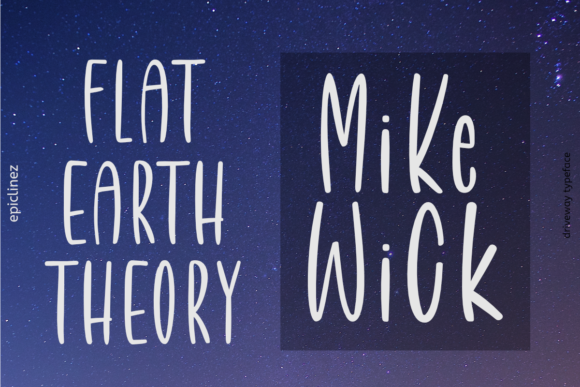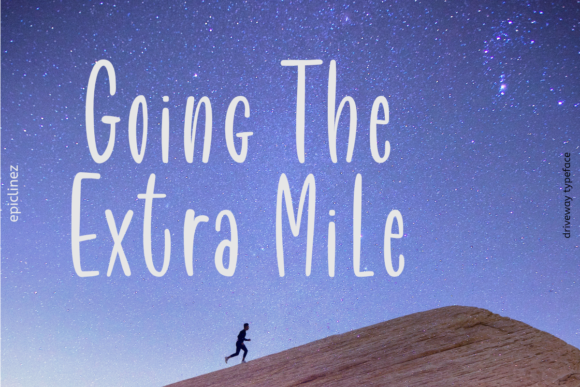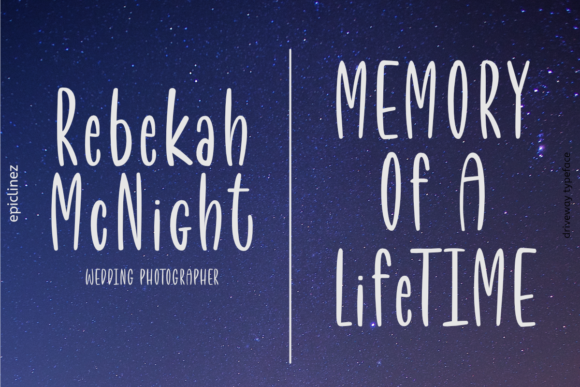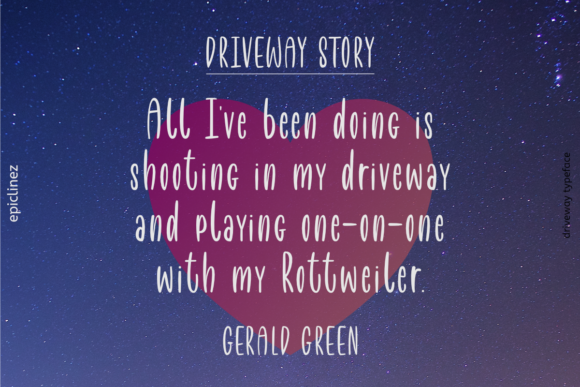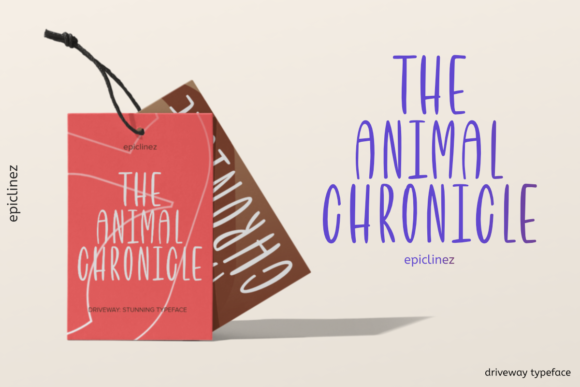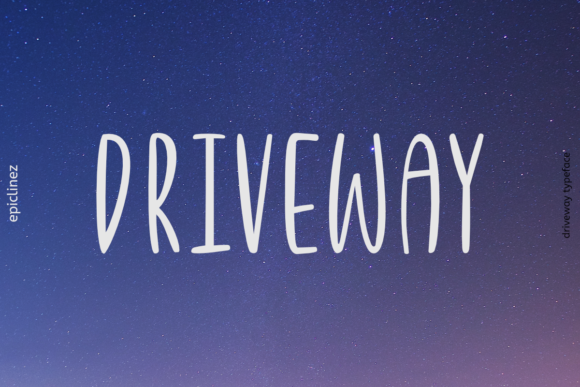
Introducing Driveway Font: The Perfect Blend of Playfulness and Readability
Are you tired of using the same old fonts in your creative projects? Look no further than Driveway Font, a casual handwritten font that’s sure to add a touch of whimsy and charm to any design. With its simplistic yet playful feel, Driveway Font is the perfect choice for designers and crafters looking to add some personality to their work.
The Characteristics of Driveway Font
Driveway Font is a handwritten font that’s designed to be highly readable, making it perfect for use in a variety of creative projects, from signage and posters to digital graphics and crafts. Its casual, laid-back feel gives it a friendly and approachable vibe that’s sure to resonate with audiences of all ages.
One of the standout features of Driveway Font is its simplicity. With clean lines and a straightforward design, this font is easy to read and understand, even at small sizes. This makes it a great choice for designers who need to create text-heavy designs that still need to be visually appealing.
The Benefits of Using Driveway Font
So why choose Driveway Font for your next creative project? Here are just a few benefits of using this versatile and charming font:
• Playful feel: Driveway Font has a fun and playful feel that’s perfect for designs that need to be lighthearted and engaging.
• High readability: With its clean lines and simple design, Driveway Font is easy to read, even at small sizes.
• Versatility: Driveway Font can be used in a wide range of creative projects, from digital graphics and signage to crafts and DIY projects.
• Easy to pair: Driveway Font pairs well with a variety of other fonts, making it easy to create visually appealing designs.
Using Driveway Font in Your Designs
So how can you use Driveway Font in your designs? Here are a few ideas to get you started:
• Signage: Use Driveway Font to create eye-catching signs for your business or event.
• Posters: Add a playful touch to your posters with Driveway Font.
• Digital graphics: Use Driveway Font to add a personal touch to your digital graphics, such as social media graphics and blog posts.
• Crafts: Driveway Font is a great choice for crafters who want to add a personal touch to their projects, such as scrapbooking and card making.
Tips for Getting the Most Out of Driveway Font
Here are a few tips for getting the most out of Driveway Font:
• Experiment with sizes: Driveway Font looks great at a variety of sizes, so don’t be afraid to experiment to find the perfect size for your design.
• Pair with other fonts: Driveway Font pairs well with a variety of other fonts, so try pairing it with some of your favorite fonts to create a unique look.
• Use it sparingly: While Driveway Font is a fun and playful font, it can be overwhelming if used too much. Use it sparingly to add a touch of personality to your design.
Driveway Font is a versatile and charming font that’s perfect for designers and crafters who want to add a touch of personality to their creative projects. With its playful feel and high readability, Driveway Font is sure to become a go-to font in your design arsenal. So why not give it a try and see how it can add some whimsy and charm to your next design project?